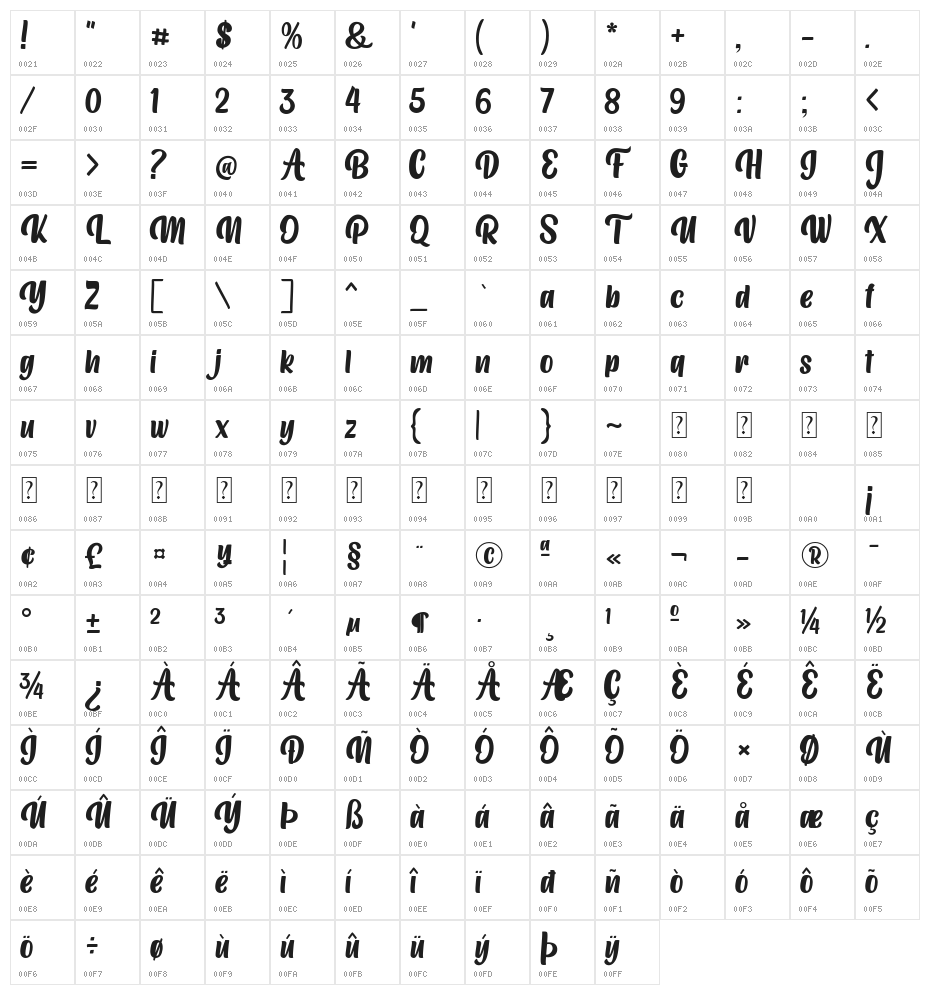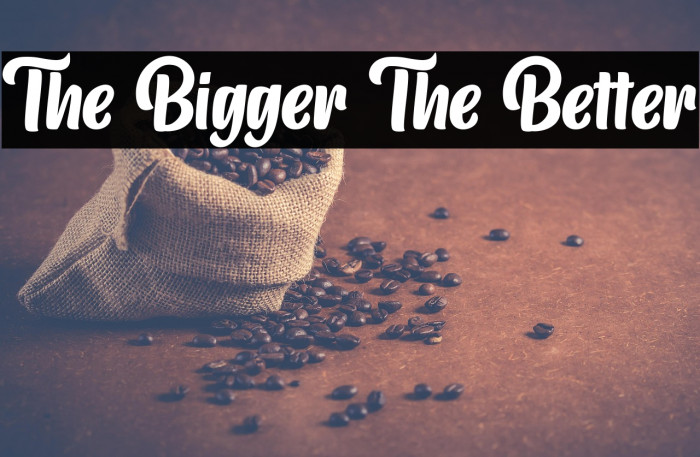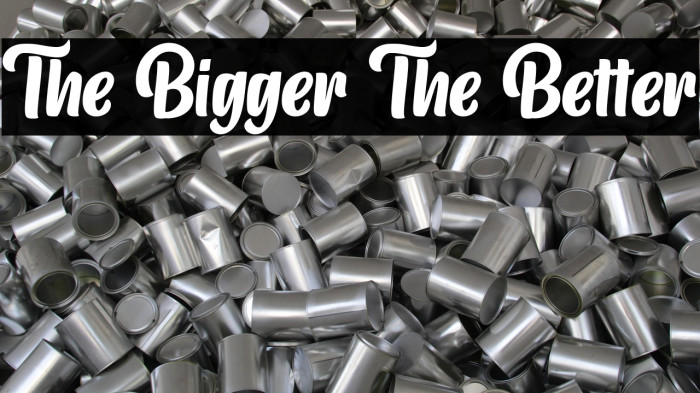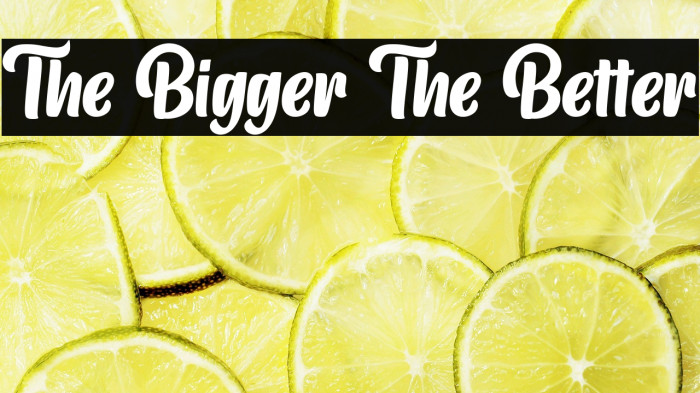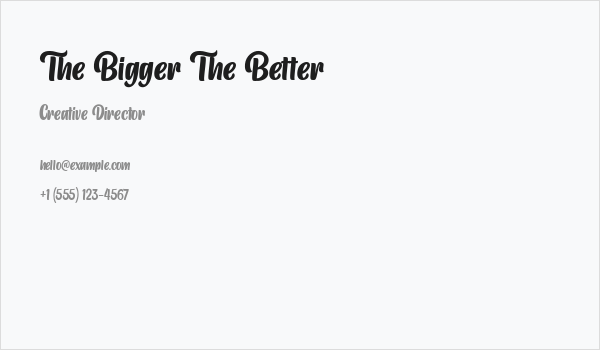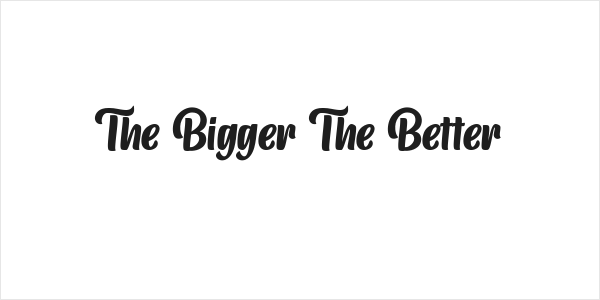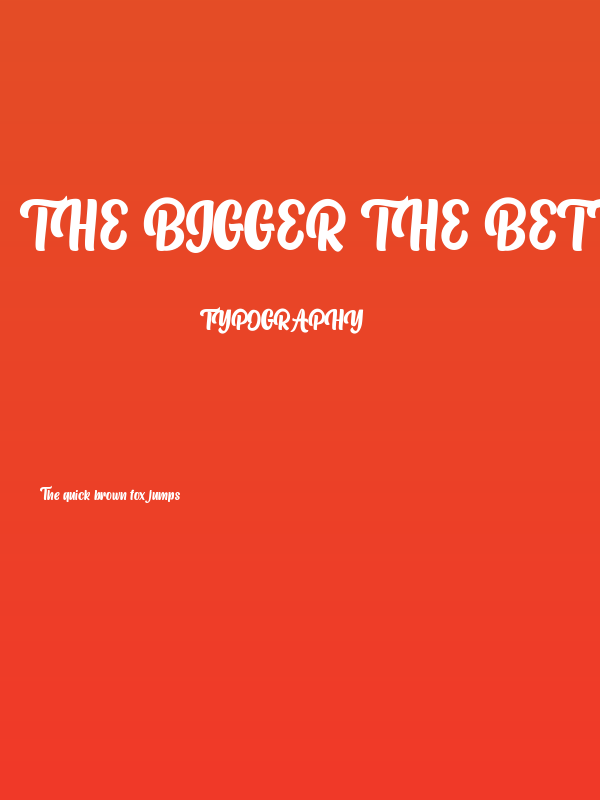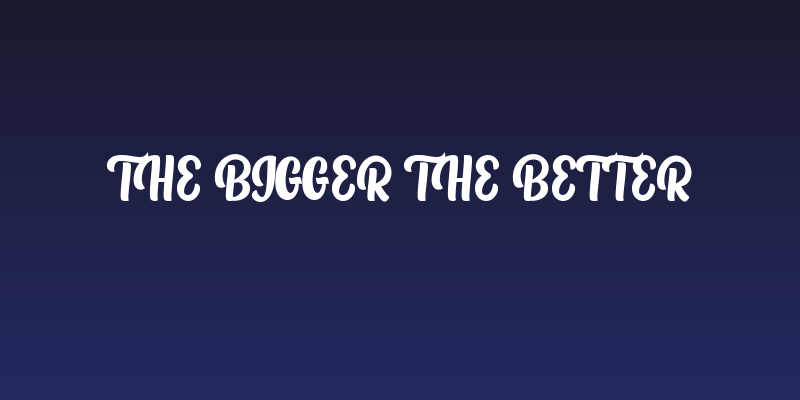
The Bigger The Better Font
The Bigger The Better Description
This font features a bold and expressive script style with a playful and dynamic appearance. The characters are connected in a flowing manner, giving it a handwritten feel. The uppercase letters are slightly more elaborate, with swashes and loops that add flair. The lowercase letters maintain a consistent rhythm, enhancing readability while retaining a casual elegance. The numerals are rounded and bold, matching the overall style. Special characters are well-integrated, maintaining the font's cohesive look. This font is ideal for projects that require a personal touch or a sense of movement and energy.